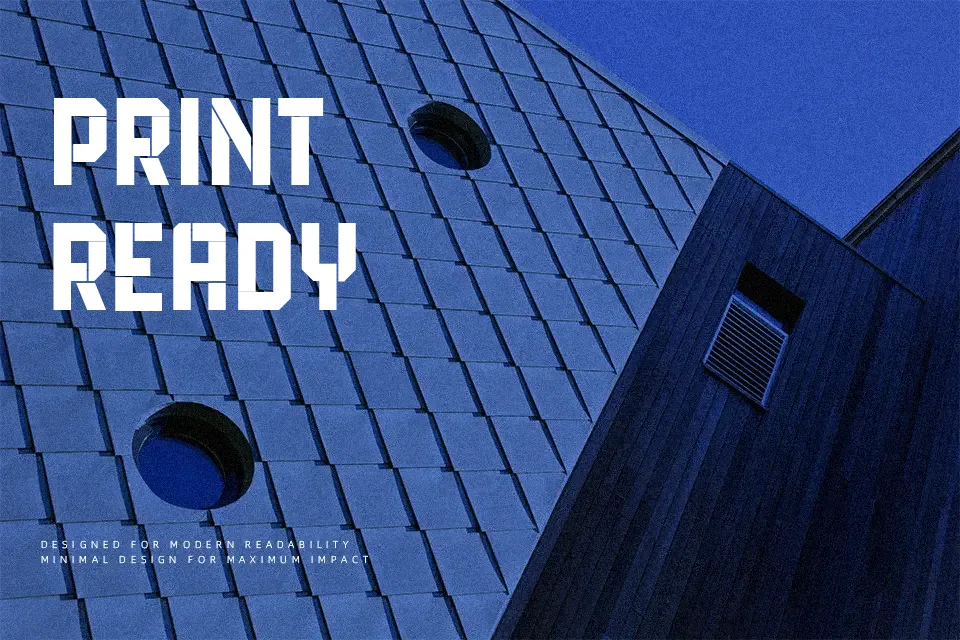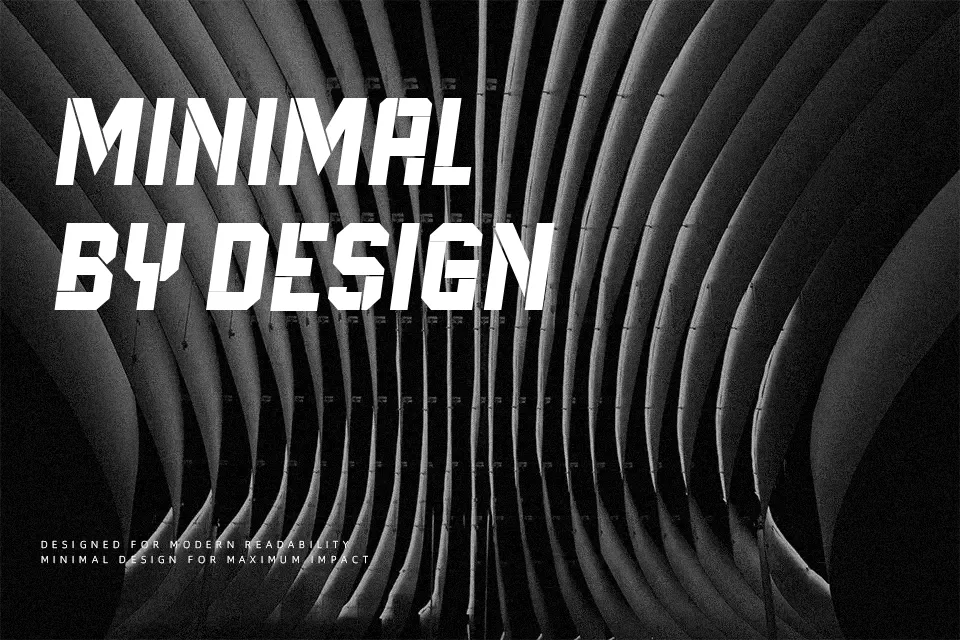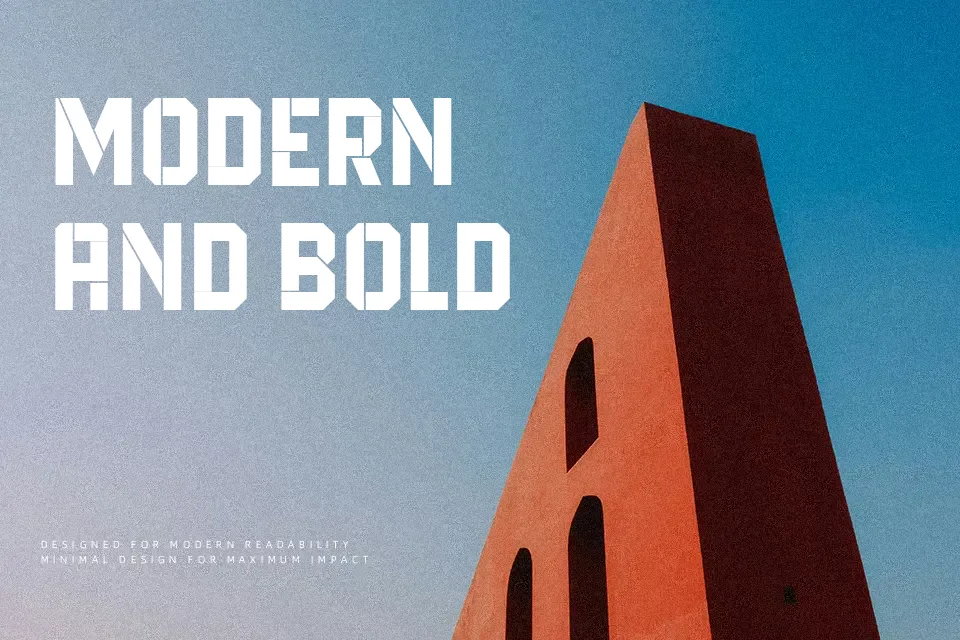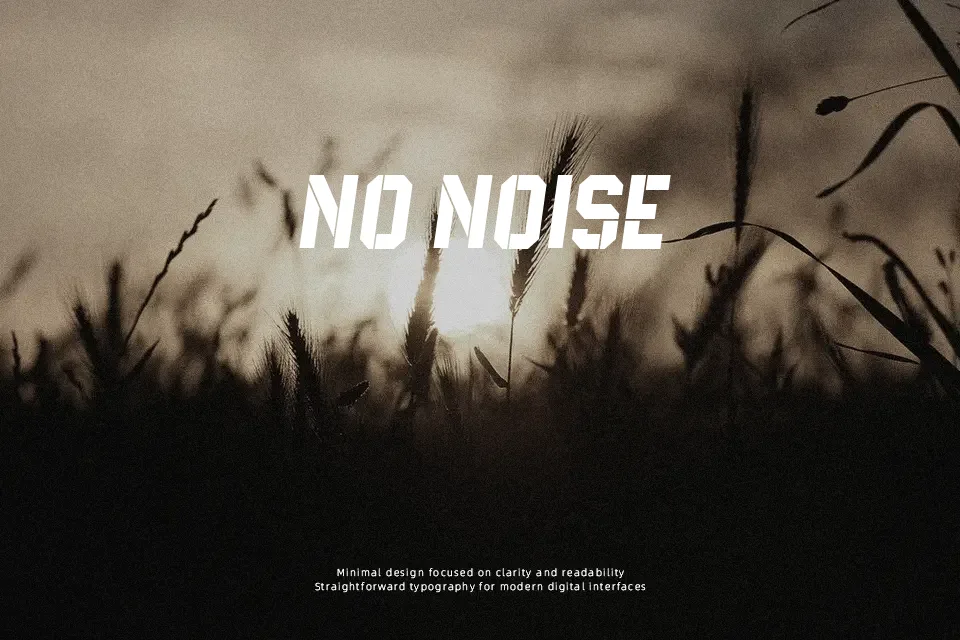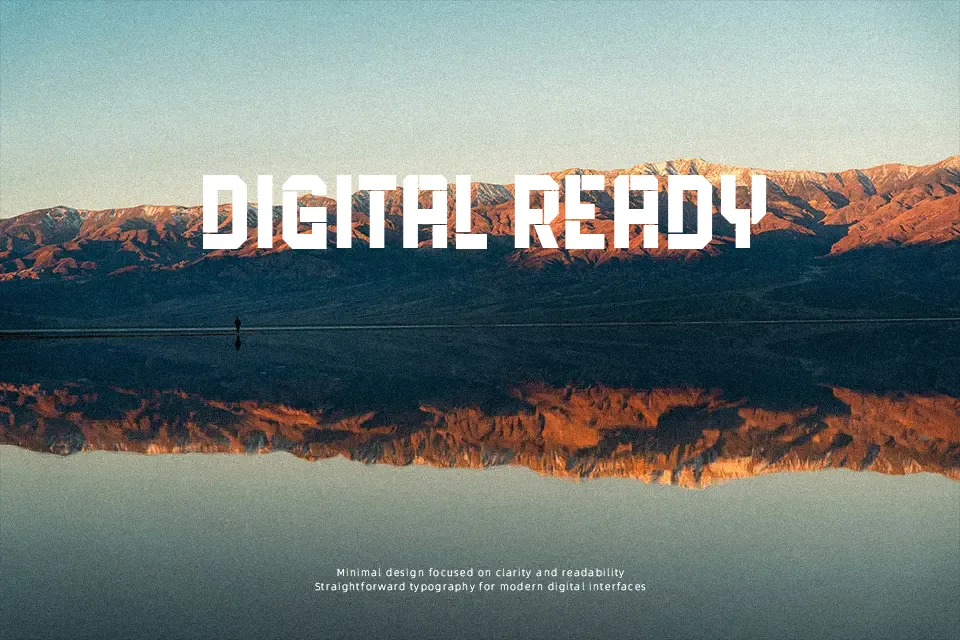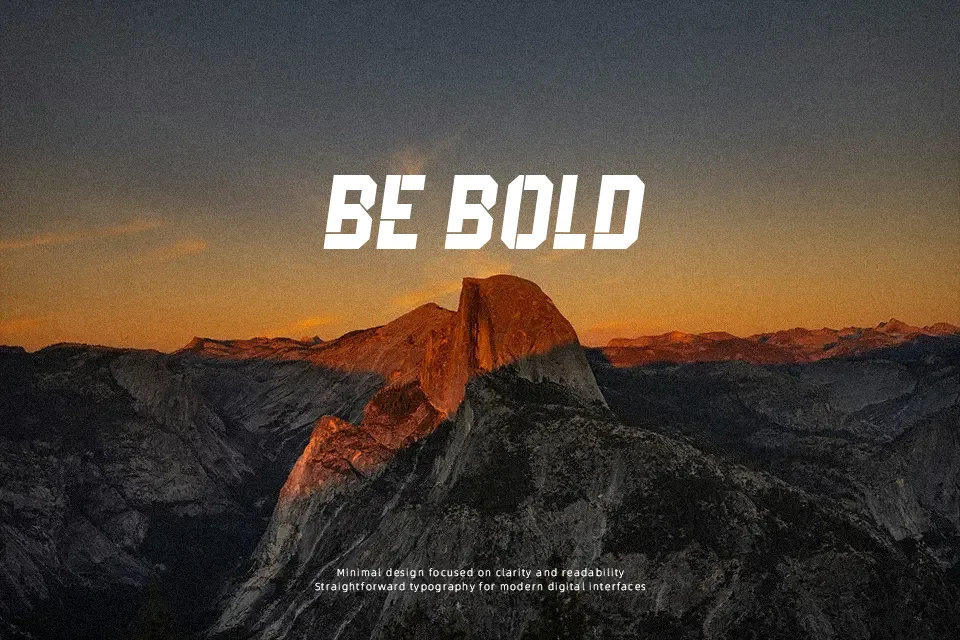
Aerstriko Font
There’s a deliberate aggression in the way Aerstriko is constructed — blocky letterforms with chopped-off strokes, tight semi-condensed spacing, and stencil gaps that read immediately as military or industrial in tone. The font carries bold weight with minimal contrast, giving it a flat, graphic quality that reproduces well at large display sizes on dark or textured backgrounds. It works well for sports branding, urban streetwear graphics, and army-themed editorial layouts where attitude is the point. However, it struggles at small sizes — the stencil gaps break legibility in body text or captions — and its aesthetic is too niche for corporate, luxury, or feminine-leaning design contexts. Designers working in a narrow, genre-specific lane will find it useful; those needing versatility should look elsewhere.
Best For:- Military or army-themed poster headlines
– Streetwear and urban apparel graphics
– Sports team logo typography
– Music festival or event display titles
Not Ideal For:- Body text or captions at small sizes
– Corporate reports or professional documents
– Luxury, fashion, or feminine branding contexts
– Long-form editorial paragraphs
Perfect for advertising, branding, and logo, with a bold and condensed style.